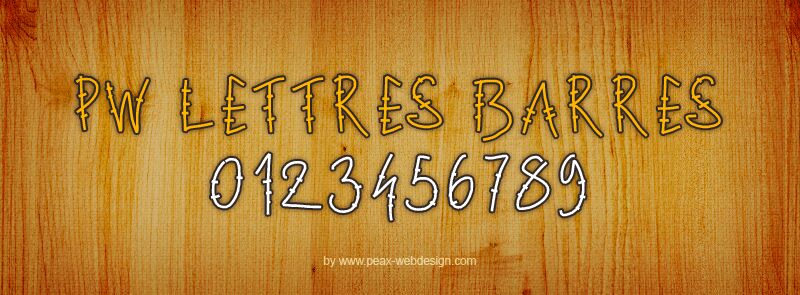
PW Lettres Barres by Peax Webdesign is a free decorative display font with tall, hand-drawn capitals and a wiry, uneven build. Repeated crossbars cut across the strokes, giving the alphabet a distinctive scratched or tally-mark detail. Its narrow shapes lean and bend slightly, and the loose joins keep the lettering raw rather than carefully engineered.
Event posters are its strongest setting, especially for indie music nights or experimental theatre, where the restless lines can become part of the artwork, and it also suits album covers and screen-printed merchandise. Its clearest audience is young designers working in DIY and underground music culture.